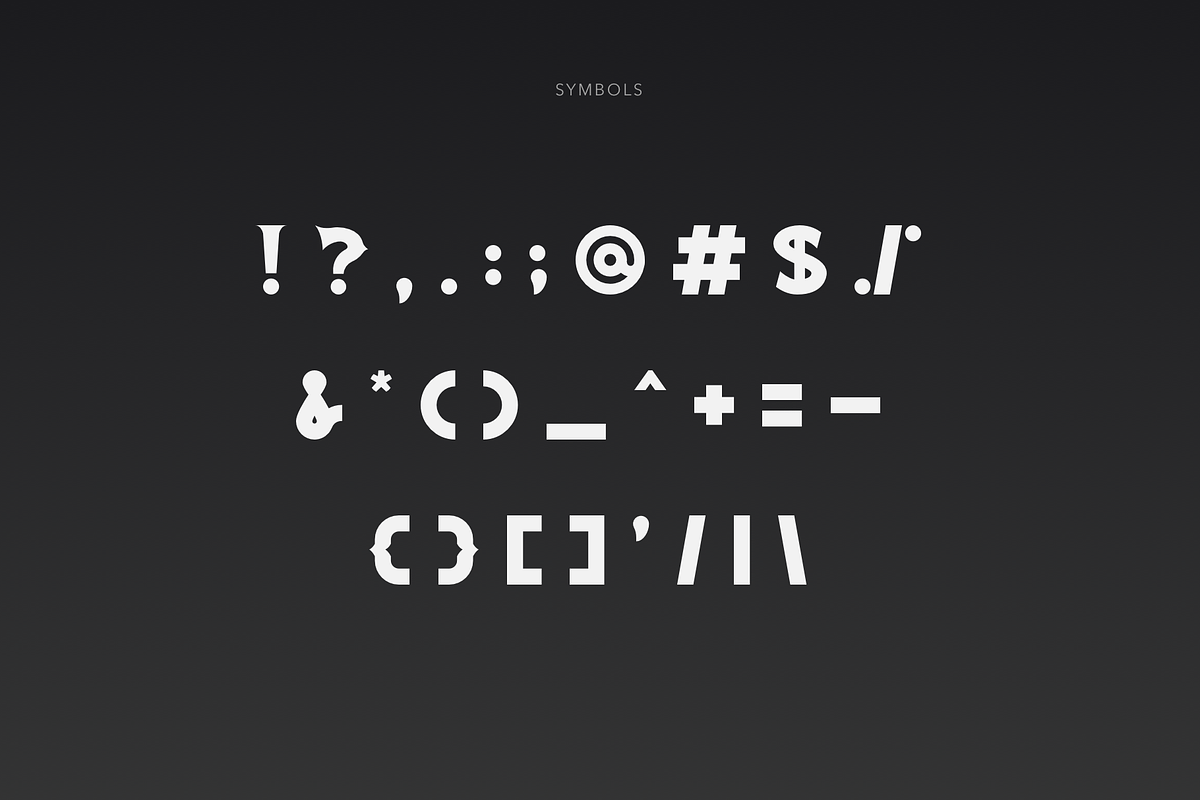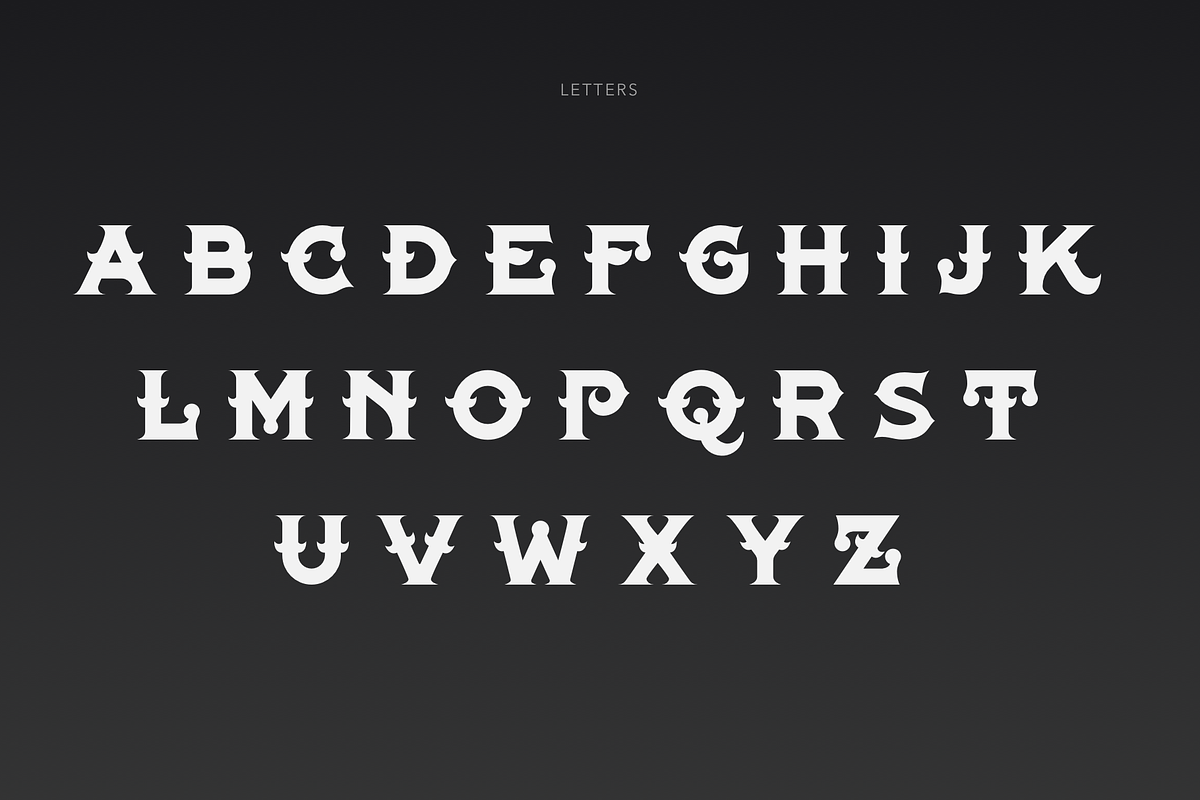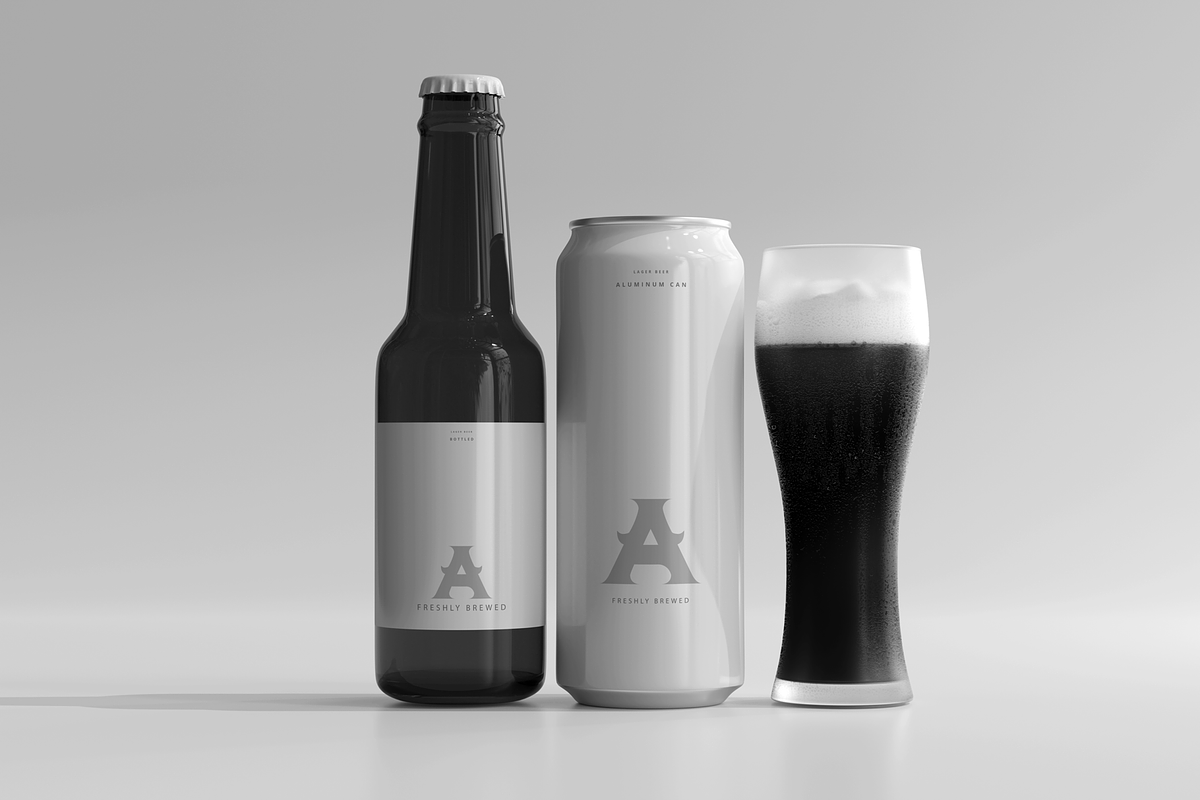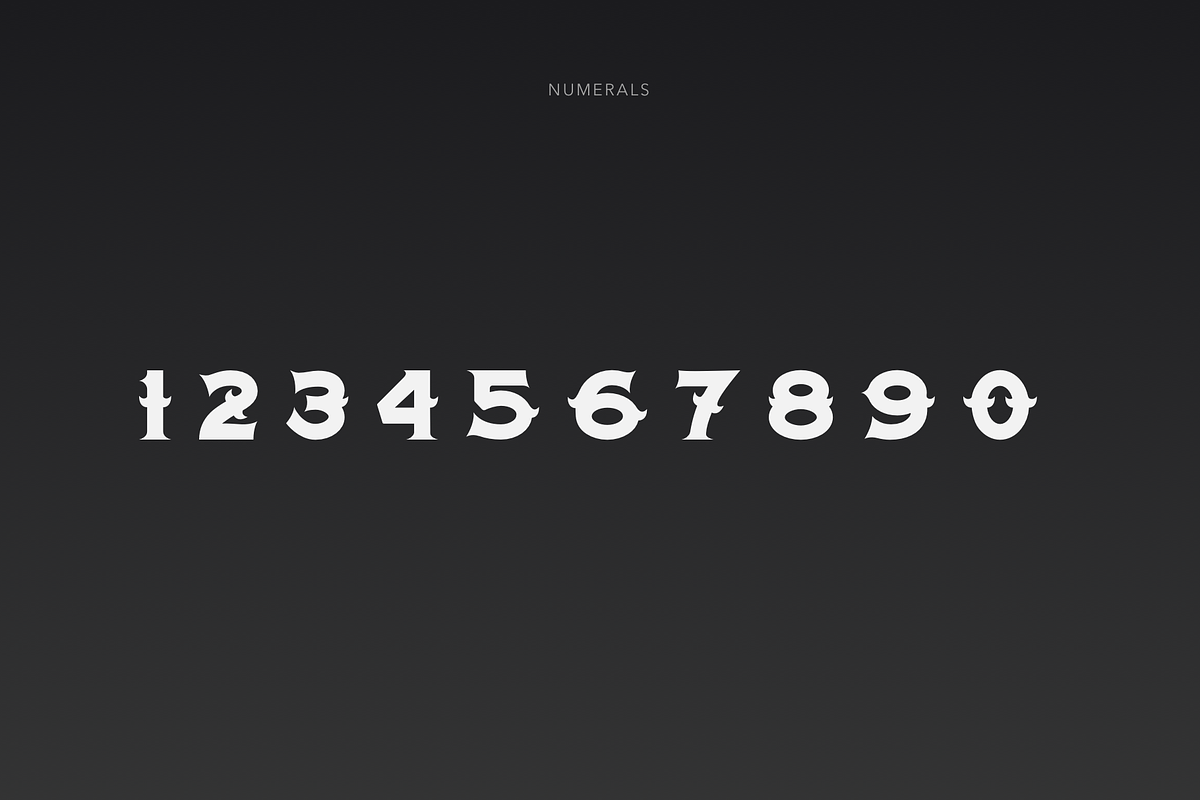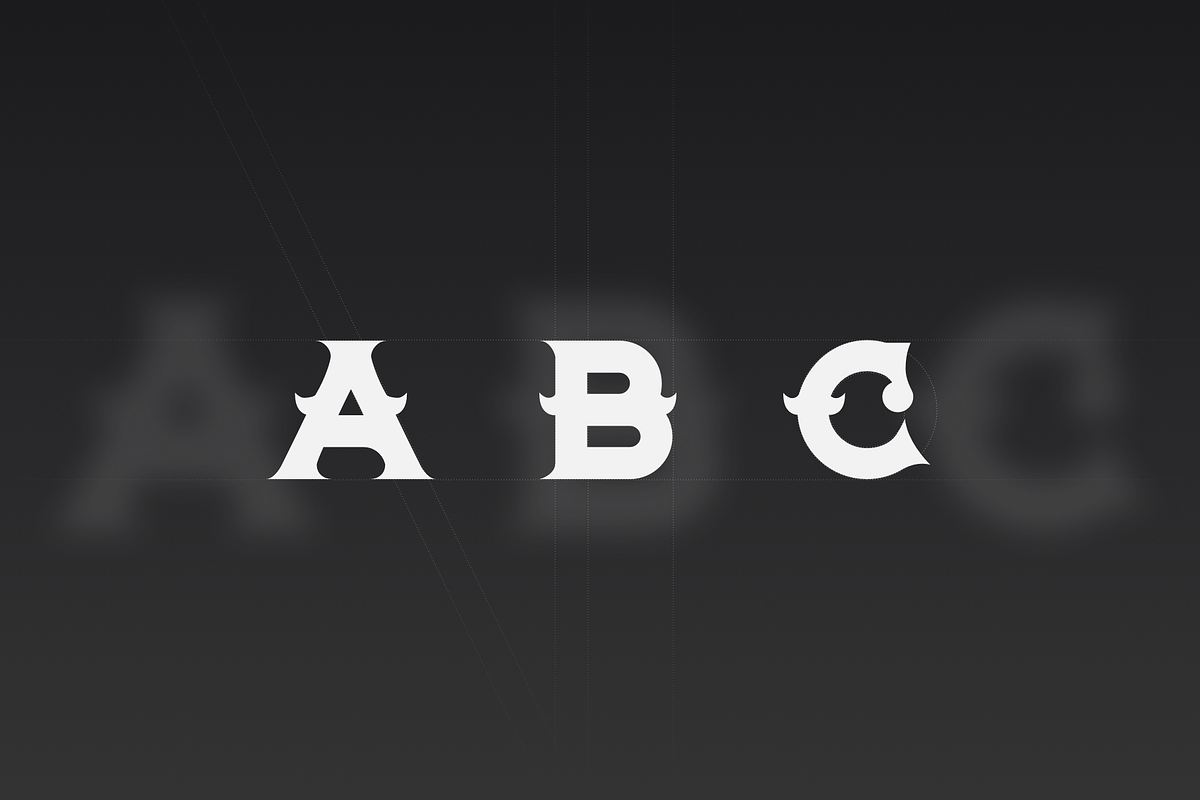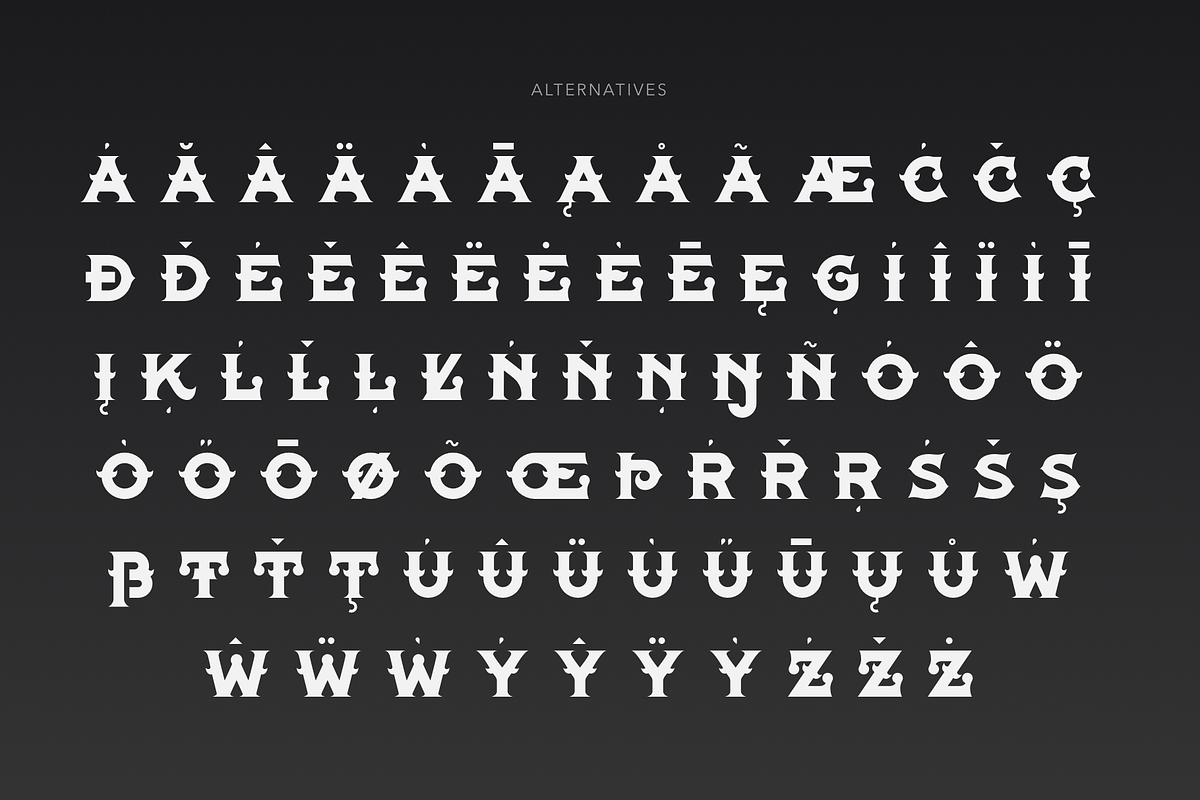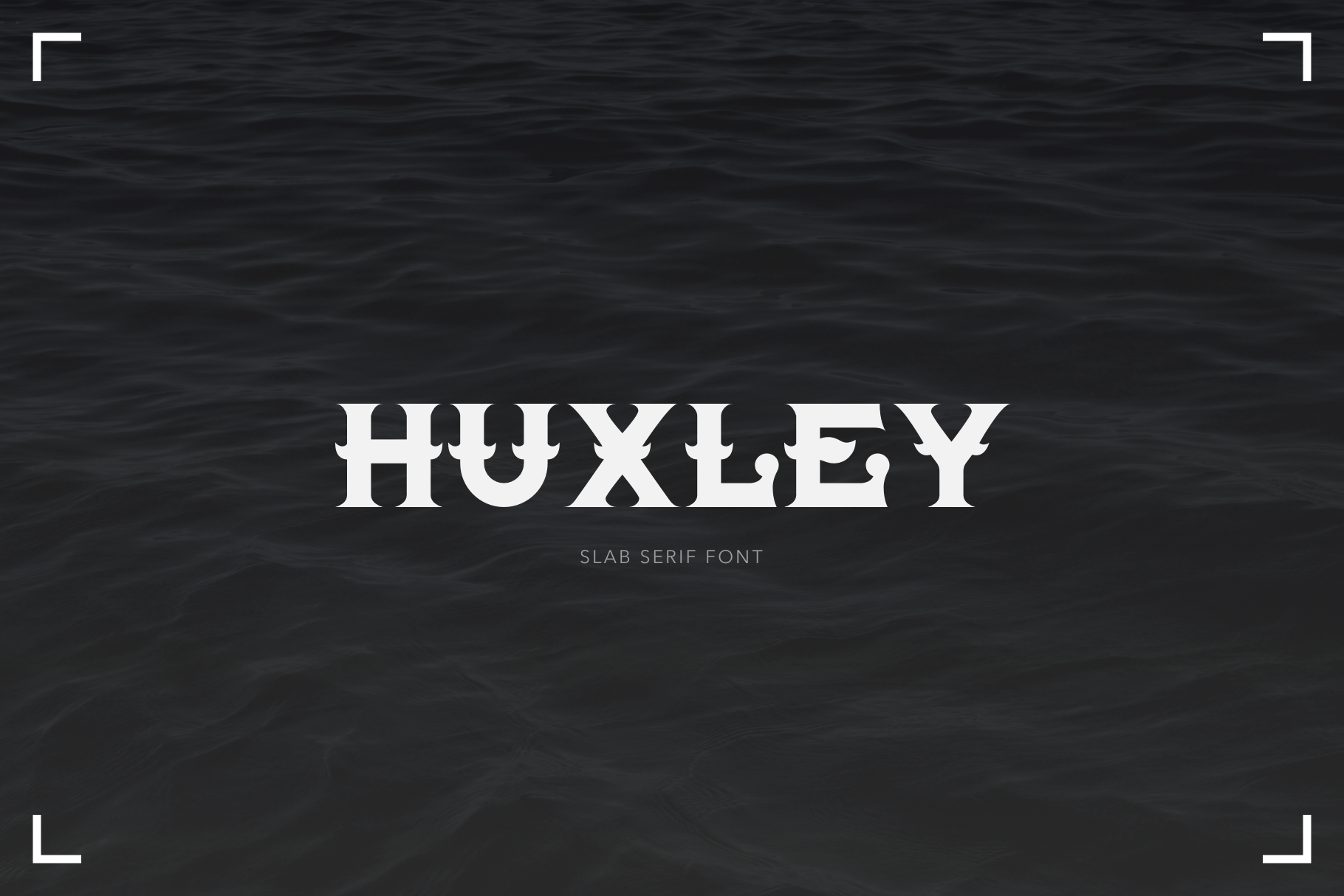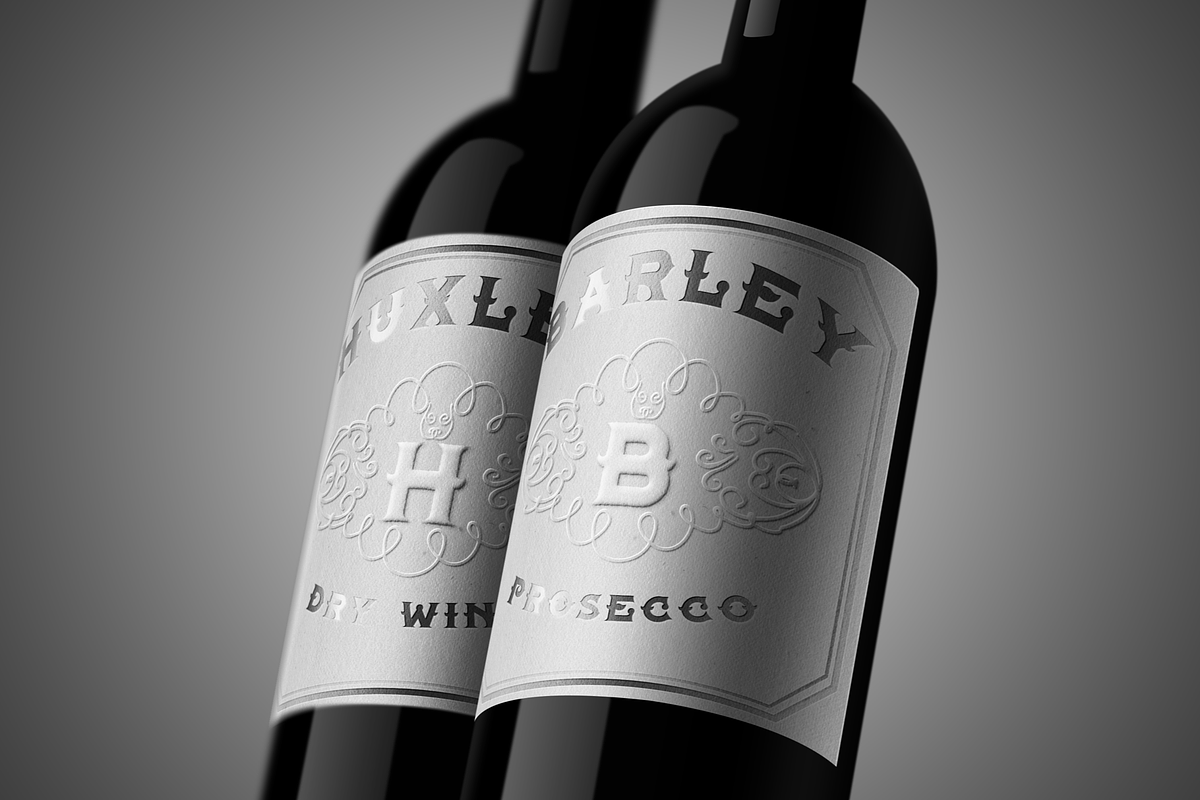
HUXLEY - Vintage Serif Font
Introducing Huxley font, a vintage slab serif font for your design.
The package includes uppercase letters, numerals and large range of punctuation and international characters. This font will perfectly fit various design and corporate needs.